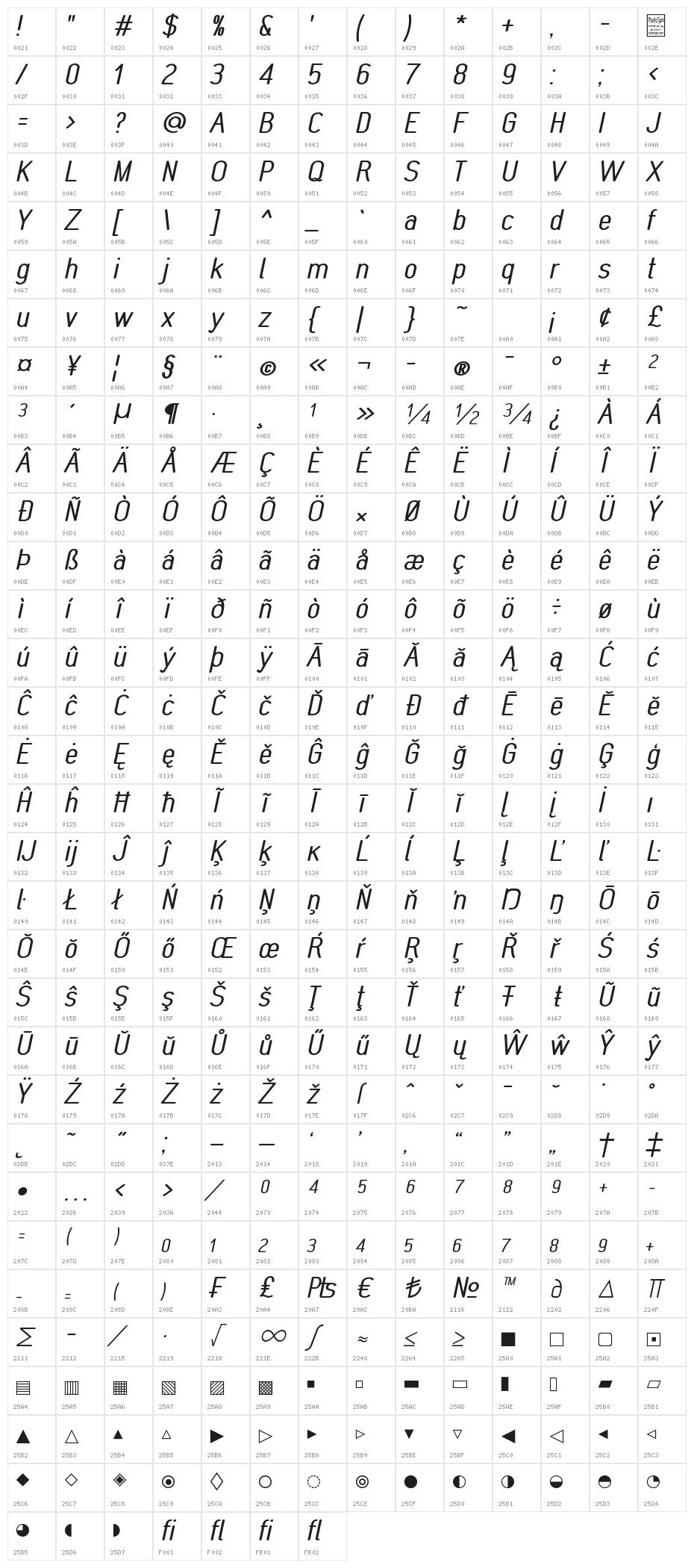
MonaBella Italic Font
MonaBella Italic Description
This font features a sleek and modern design with a subtle italic slant, giving it a dynamic and elegant appearance. The characters are slightly condensed, contributing to a streamlined look that is both sophisticated and contemporary. The strokes are consistent in weight, providing a uniform appearance across all characters. The font maintains a medium contrast, allowing for clear readability while retaining a stylish flair. Its clean lines and smooth curves make it versatile for various design applications, from digital to print media.
| Use Case | Headlines, Logos, Editorial design |
| Proposed Projects | Ideal for branding, advertising, digital media, and editorial design projects where a modern and elegant touch is desired. |